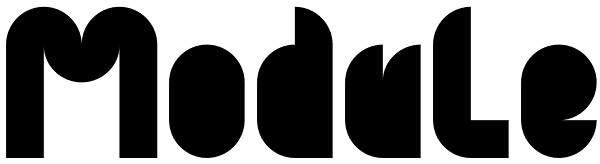
Module
Sébastien Truchet designed a modular typographic system during his last year in the School of Fine Arts of Besançon. The system is made of a unique grid and 6 modules which are the components to build several typefaces. The most radical is the...